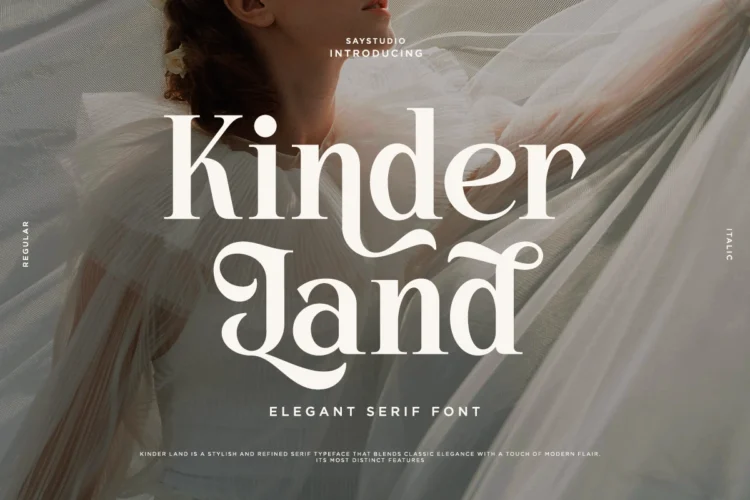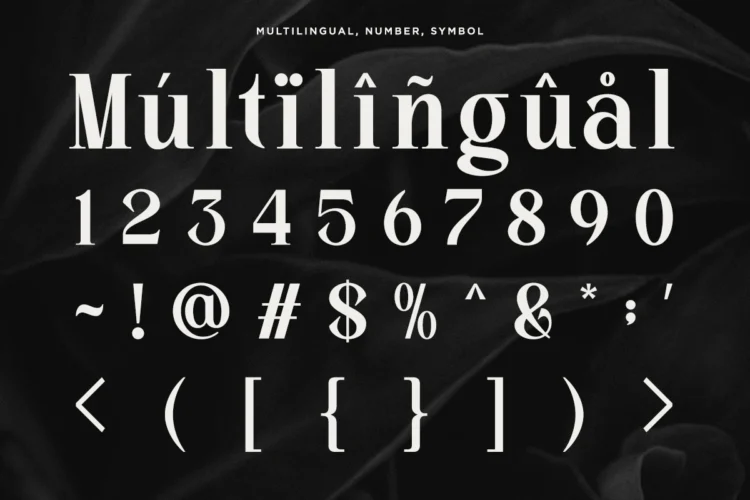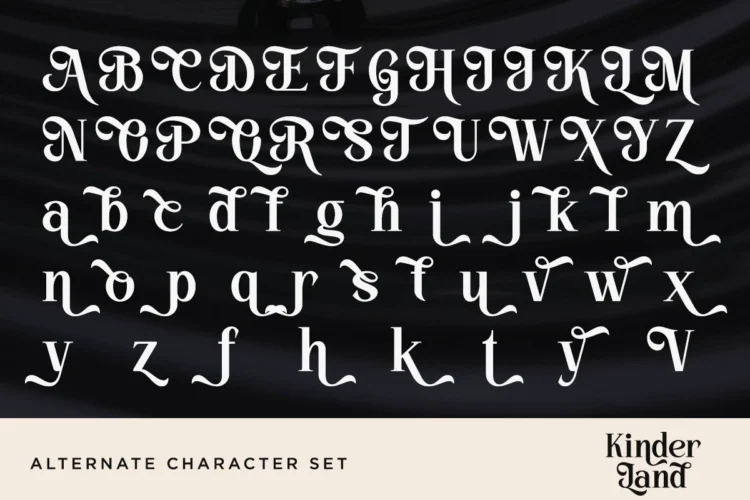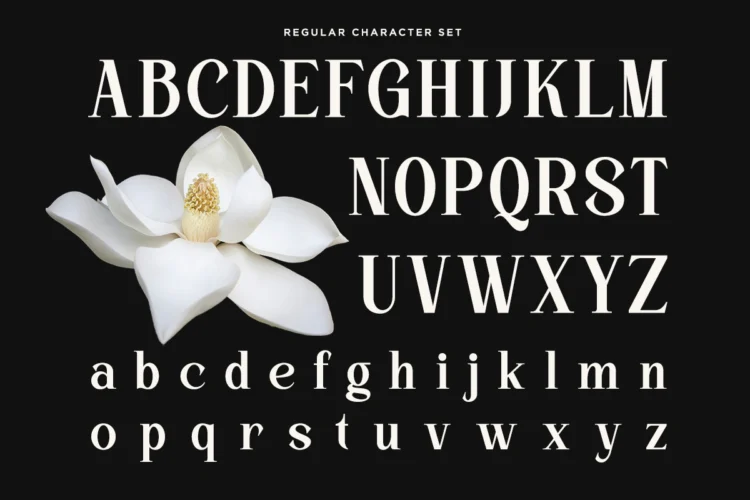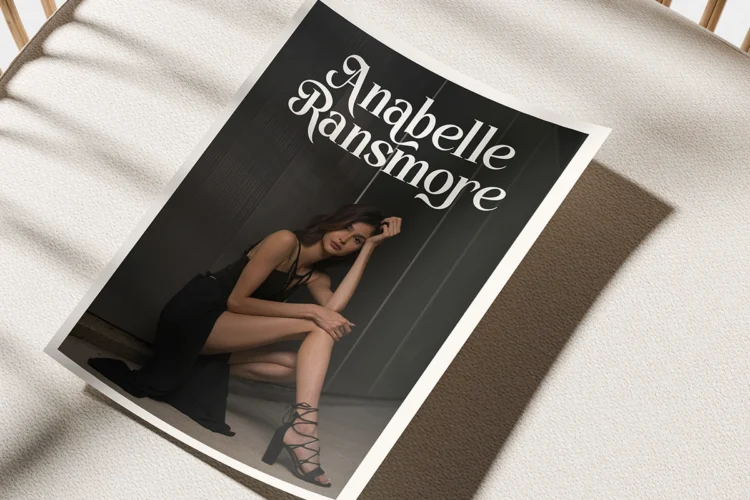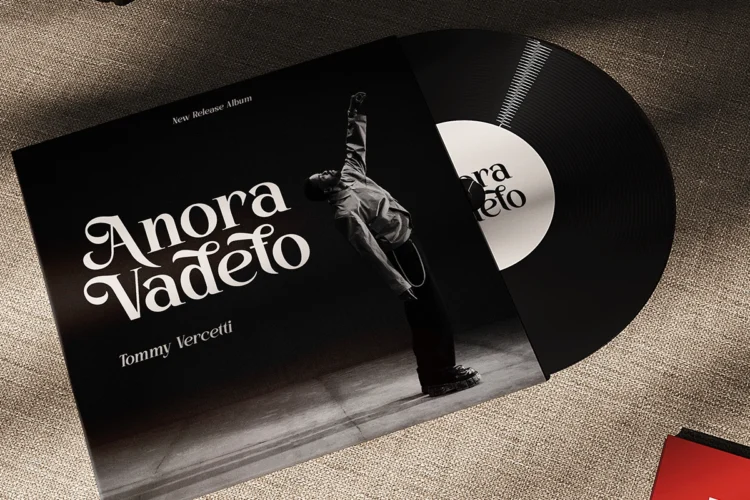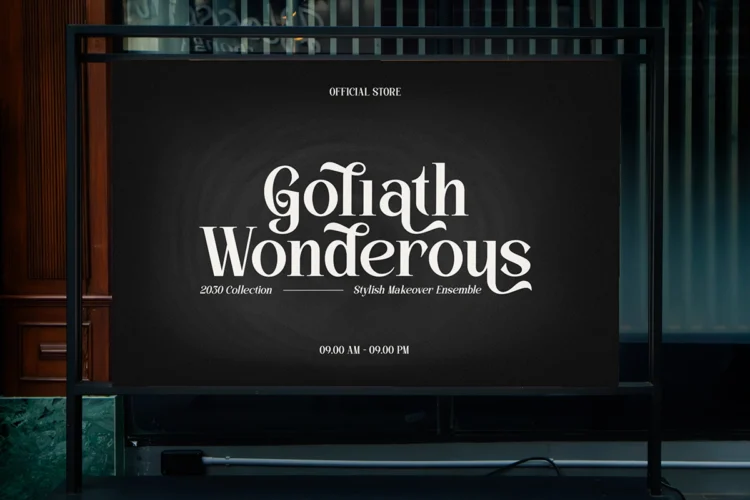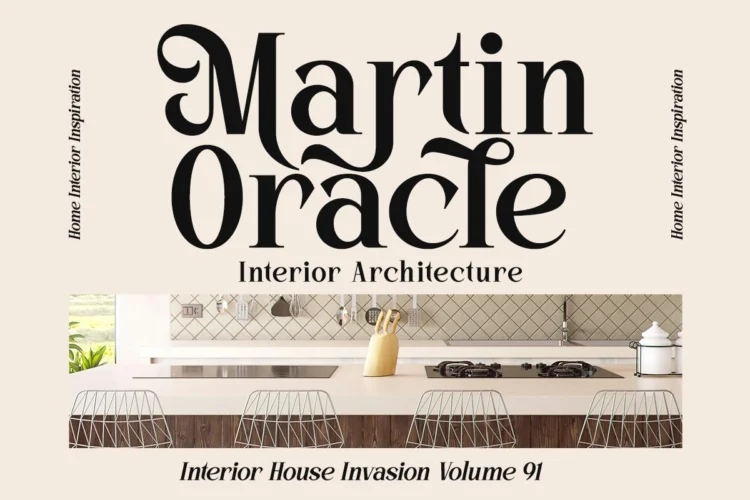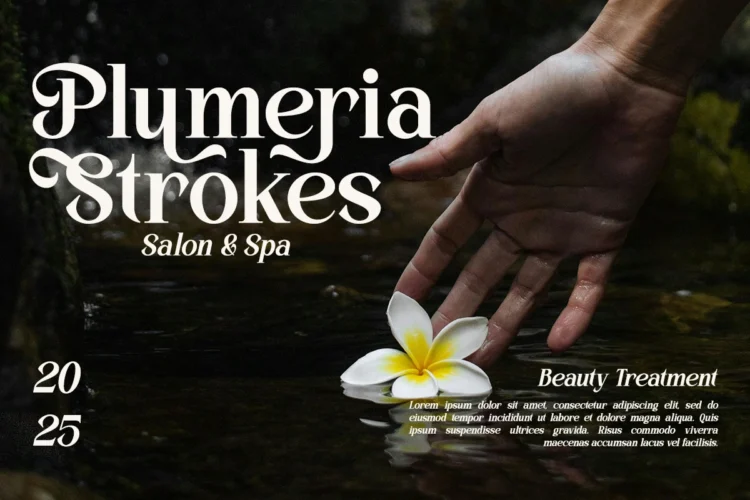
Kinder Land
Kinder Land is a stylish and refined serif typeface that blends classic elegance with a touch of
modern flair. Perfect for Branding, Logo, Classy Editorial, Fashion Brand, Title, Headline, etc.
- Stylish Uppercase & Lowercase Alternate
- Symbol & Number.